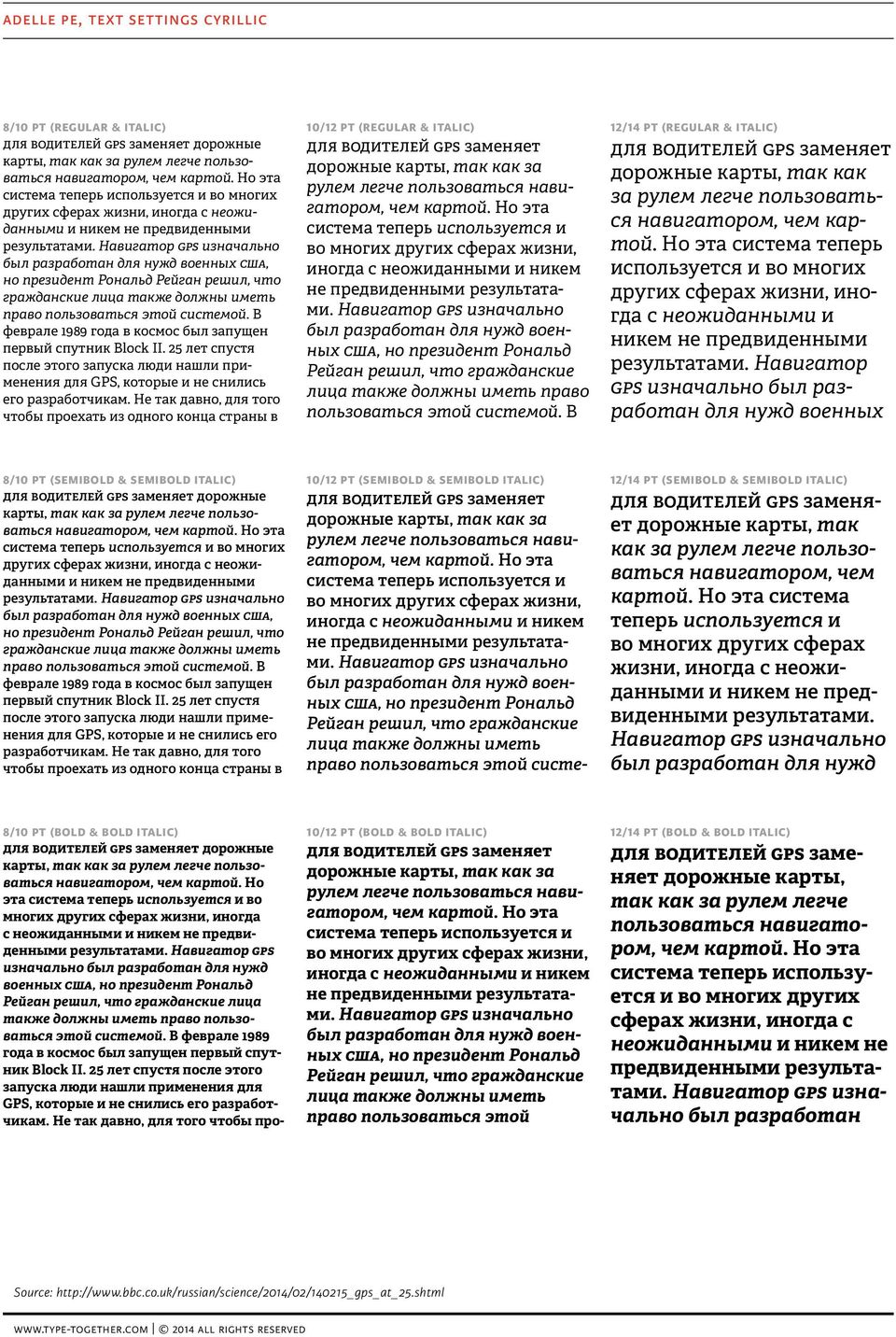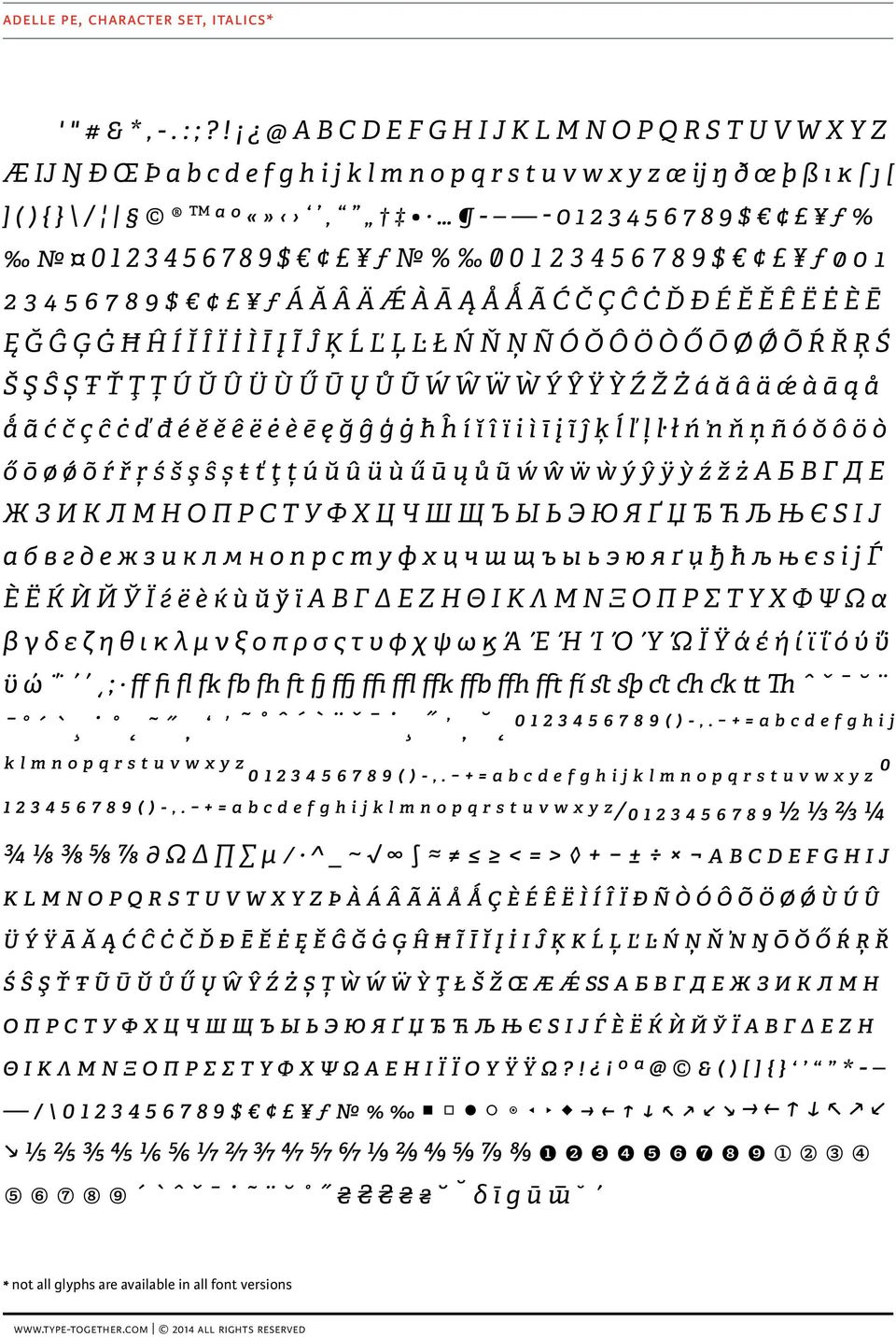
Adelle PE. A versatile and elegant Slab Serif by TypeTogether. about the typeface
1 Adelle PE A versatile and elegant Slab Serif by TypeTogether about the typeface While Adelle is a slab serif typeface conceived specifically for intensive editorial use, mainly in newspapers and magazines, its personality and flexibility make it a real multiple-purpose typeface. The intermediate weights deliver a very legible and neutral look when used in text sizes, providing the usual robustness expected in a newspaper font. The unobtrusive appearance, excellent texture and slightly dark color allow it to behave flawlessly in continuous text setting, even in the most demanding editorial applications. As it becomes larger in print, Adelle shows its personality through a series of measured particularities that make it easy to remember and identify. It has 14 styles, ranging from light to heavy, with more than 800 characters per font. Its energetic character, so inherent to slab serif fonts, becomes evident as the typeface is used for subheadings and headlines. Recently support for Cyrillic and Greek script languages has been added to all 14 styles. Russian designer, Alexandra Korolkova, consulted on the design to ensure typographic adherence to current trends in the Cyrilic script. Greek expert Irene Vlachou designed Greek versions ensuring coherence in the entire family. Adelle has been awarded Gold in the category Original Typeface in the European design competition Ed-Awards Being one of our most popular webfonts, Adelle, has been updated for better screen rendering and cross-platform consistency. Eight of its styles (light to bold and matching italics) have been optimized for low resolution rendering. The new webfonts provide a more consistent performance and overall better appearance at smaller pixel sizes. Please consult your webfont service provider for availability: TYPEKIT - FONTDECK - WEBINK - FONTS.COM i styles & scripts Adelle Άντελε Адель PE Thin Italic Adelle Άντελε Адель PE Light Italic Adelle Άντελε Адель PE Regular Adelle Άντελε Адель PE Italic Adelle Άντελε Адель PE Semibold Italic Adelle Άντελε Адель PE Bold Italic Adelle Άντελε Адель PE Extrabold Italic Adelle Άντελε Адель PE Heavy Italic